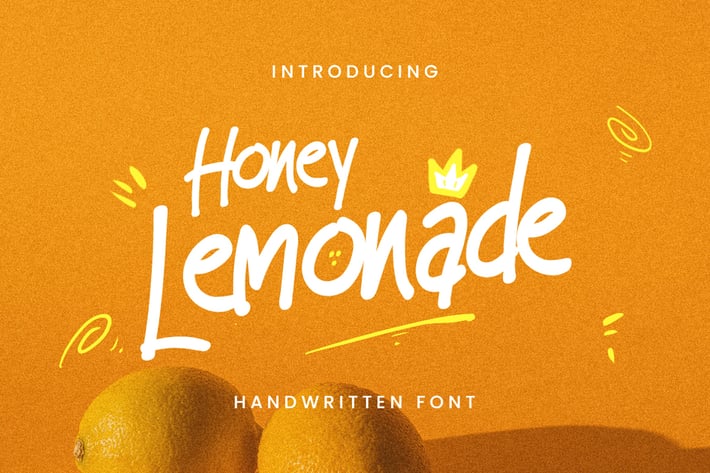
Honey Lemonade - Handwriting Font
Creavora
Introducing Honey Lemonade - Handwriting Font
Looking for a perfect font to fire up your projects?
Honey Lemonade is the answer. A new handwritten font that's perfect for branding materials, posters, magazine, invitation, and many more.
Make an awesome design using this enchanting font.